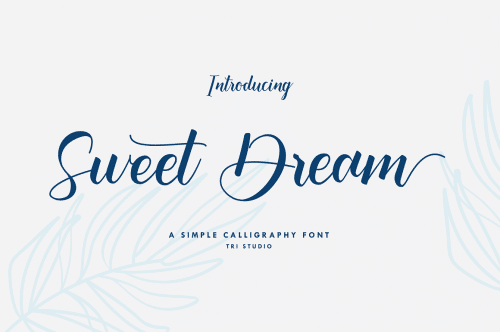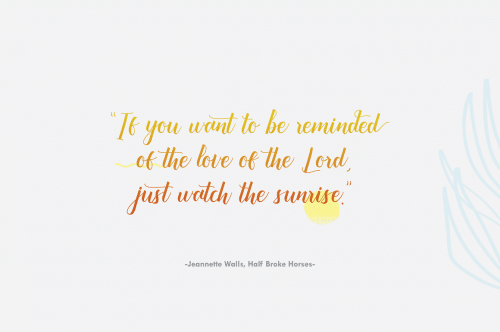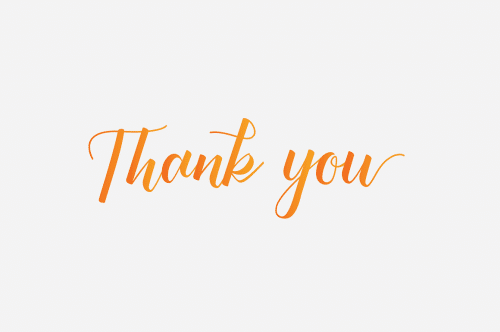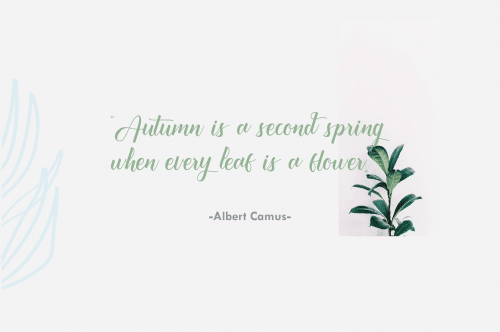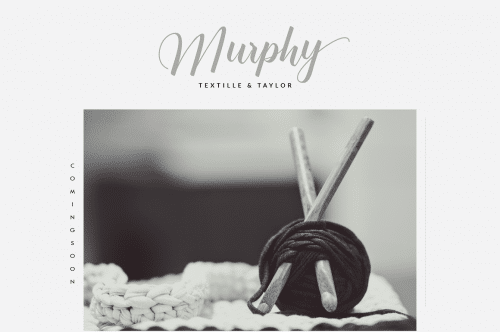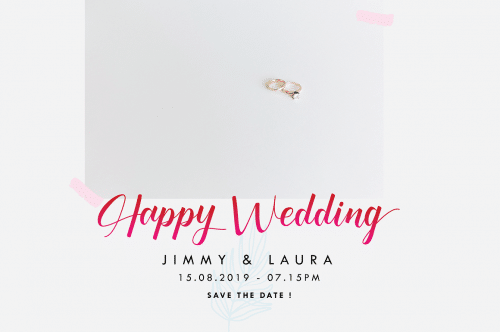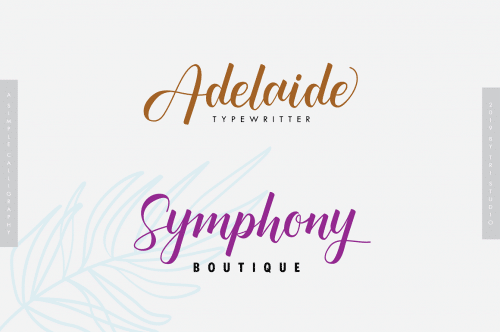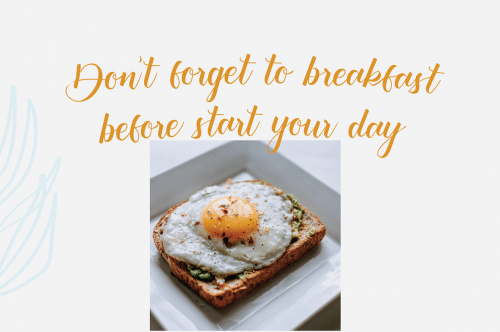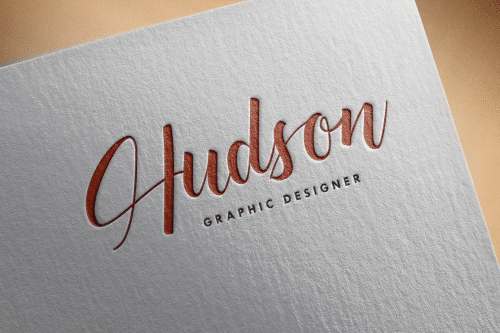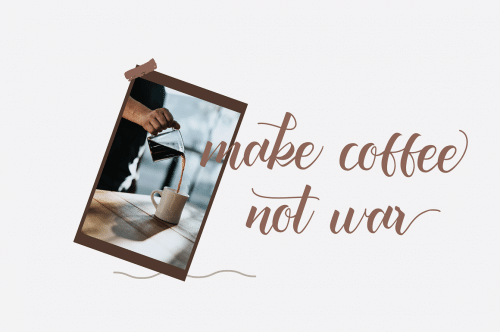
Sweet dream is a simple calligraphy font that has uppercase, lowercase, and symbols, this font can be used to design wedding invitation cards, text on pre-wedding photos, business cards, t-shirt designs, quote, and many more.